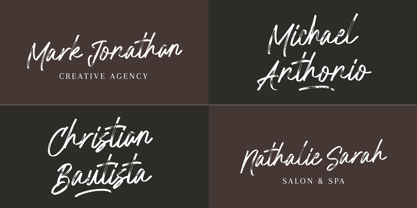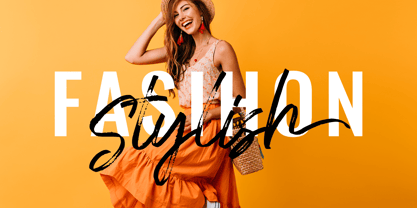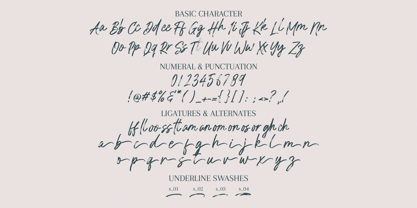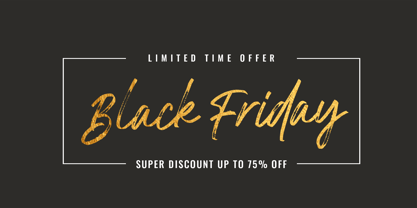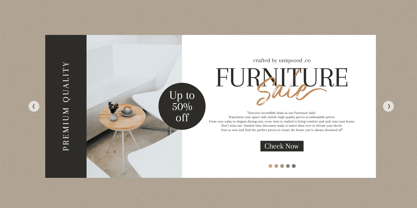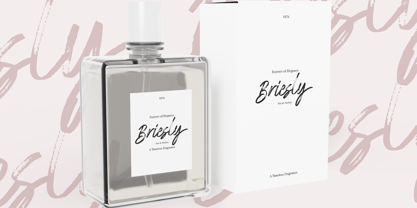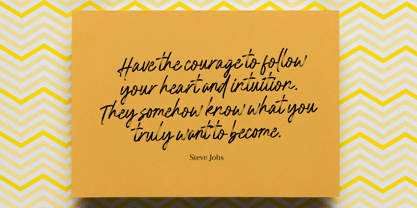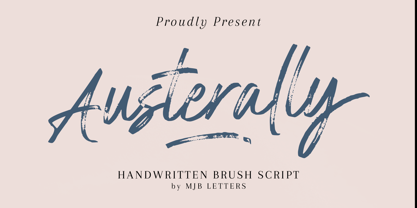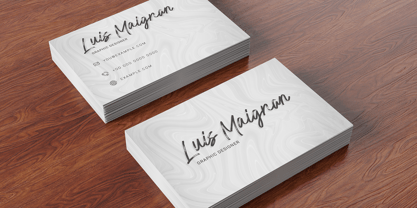
Austerally
von MJB Letters
Die Schriftfamilie Austerally wurde von Muhammad Mujibulloh entworfen und von MJB Letters veröffentlicht. Austerally enthält 1 Stile. Mehr über diese Familie
Austerally handwritten brush script font is a modern, casual, and authentic font designed to bring creativity and personality to your projects. With its smooth strokes and natural flow, Austerally font captures the essence of handwritten artistry while maintaining a clean, professional look. It’s perfect for adding a touch of uniqueness and elegance to your designs, ensuring they stand out in any context.
Ideal Uses for Austerally Handwritten Brush Script Font
This font is highly versatile and ideal for various applications, including branding, logos, packaging, social media posts, invitations, business cards, and web headers. Whether you’re working on a sophisticated logo, an eye-catching social media post, or stylish packaging, Austerally font delivers a modern and approachable aesthetic. It adapts seamlessly to a wide range of projects, making it a reliable choice for designers.
Not only is Austerally font visually appealing, but it also offers a distinct, authentic feel that makes your projects stand out. Its modern brush script style ensures readability while retaining its casual charm. This makes it suitable for both professional and creative designs, striking the perfect balance between elegance and approachability.
With Austerally font, you can easily infuse your designs with authenticity and style. Its handwritten brush script design brings a sense of warmth and personality, making it perfect for creative professionals, entrepreneurs, and anyone looking to create memorable, impactful designs.
In conclusion, Austerally handwritten brush script font is the perfect choice for anyone seeking a modern, casual, and authentic font. Whether it’s for branding, invitations, or web headers, Austerally font enhances your projects with its unique handwritten style. Add this versatile font to your design toolkit and elevate your creative work today!
Designer: Muhammad Mujibulloh
Foundry: MJB Letters